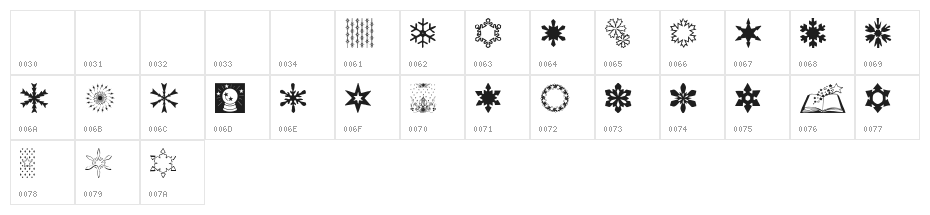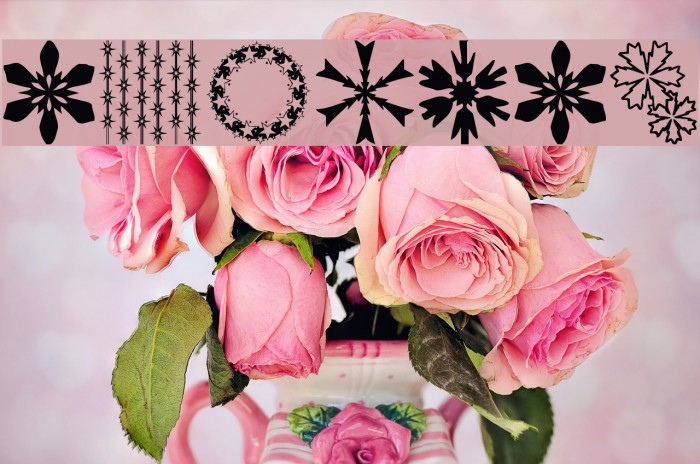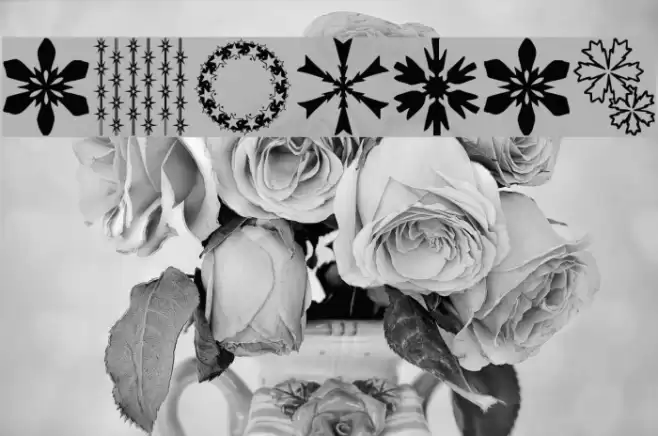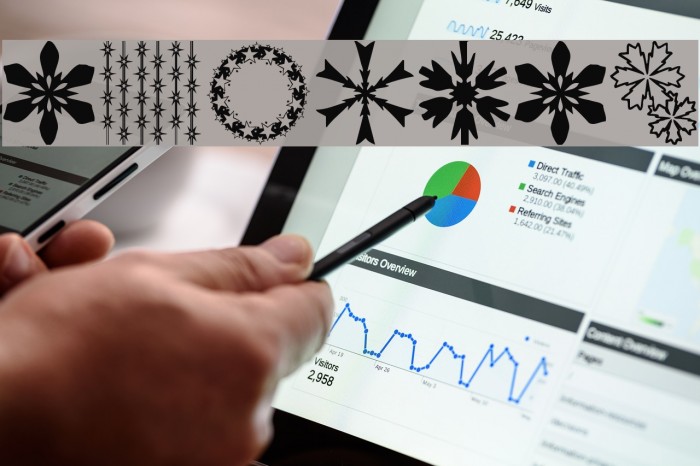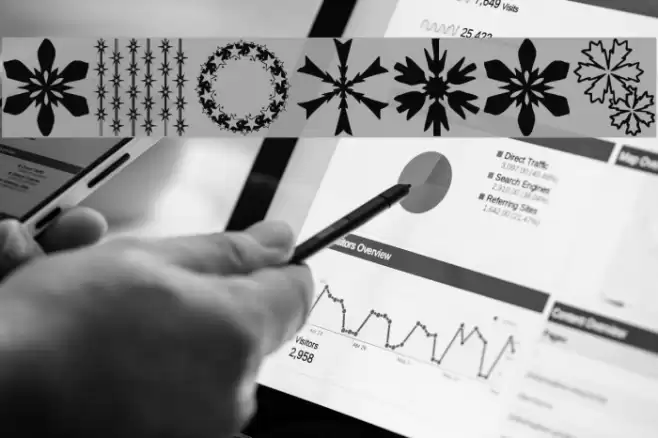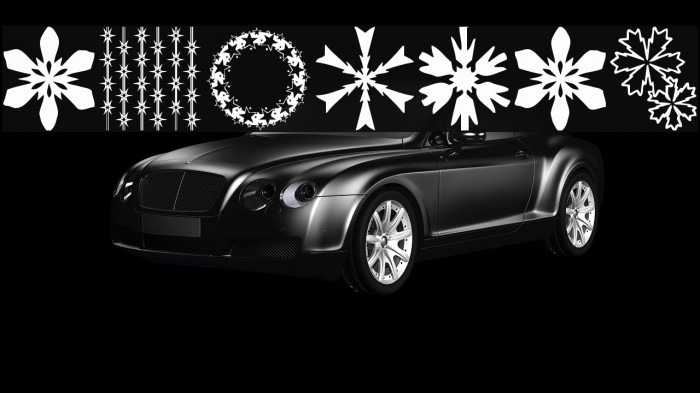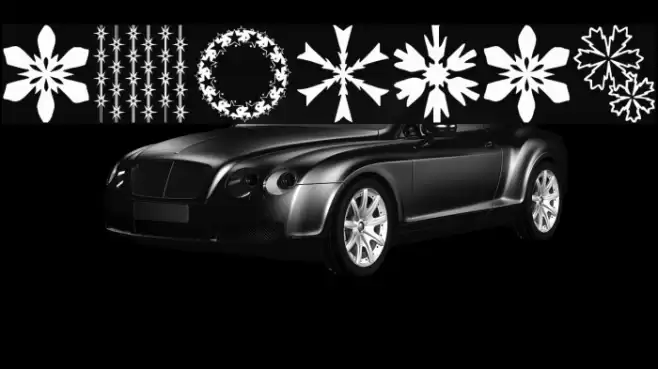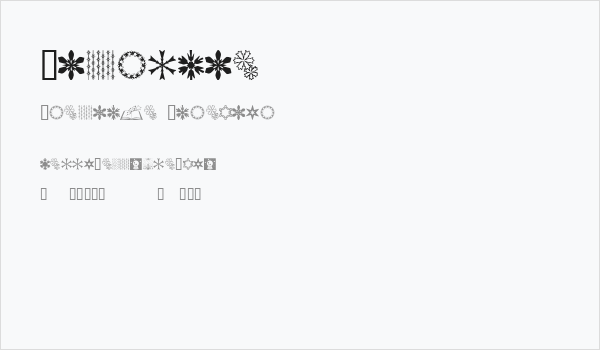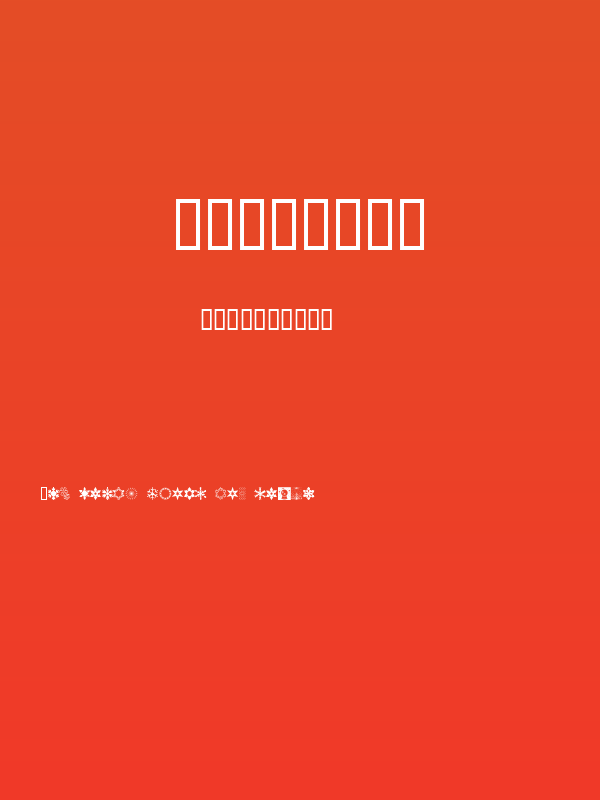
Starlite Font
Starlite Description
This is not a valid font. The image consists of decorative symbols and shapes, such as stars, snowflakes, and other ornamental designs. These elements are not representative of a traditional font that includes letters, numbers, and punctuation marks. Instead, the image showcases a collection of graphical icons that could be used for decorative purposes in design projects.
| Use Case | Decorative elements in design projects. |
| Proposed Projects | These symbols could be used in graphic design projects, such as creating borders, embellishments for invitations, or decorative elements in digital artwork. |